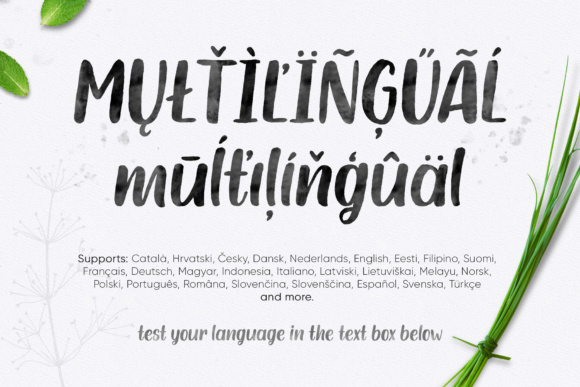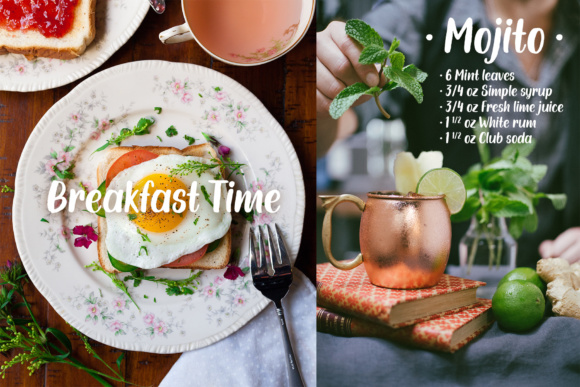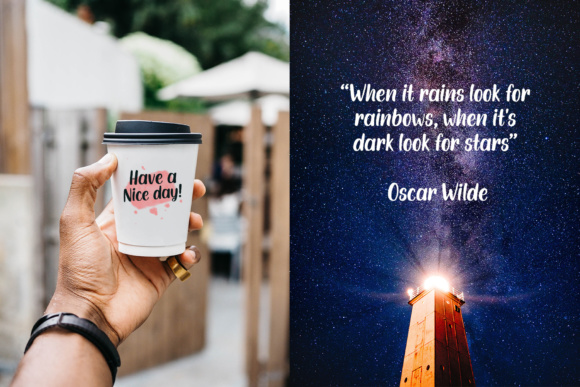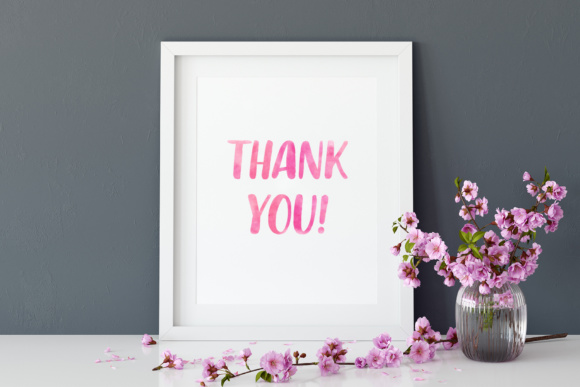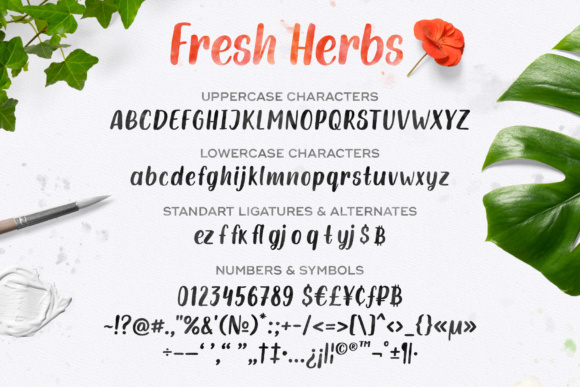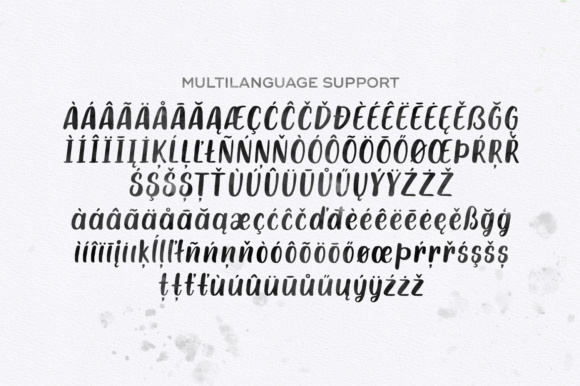
Introducing Fresh Herbs Font: The Perfect Hand-Drawn Brush Font for Your Design Needs
Are you a designer or crafter looking for a unique and eye-catching font to elevate your designs? Look no further than Fresh Herbs Font, a beautifully hand-drawn brush font that adds a touch of personality to any project. With its rough edges and natural look, Fresh Herbs Font is perfect for creating stunning text on photos, cards, product packaging, apparel, and more.
What Makes Fresh Herbs Font Special?
Fresh Herbs Font is a one-of-a-kind font that boasts a distinctive, hand-drawn look. Its rough edges, which are particularly visible in larger sizes, give it a charming, organic feel that’s perfect for designs that need a personal touch. Whether you’re creating a beautiful card design, a product label, or a social media post, Fresh Herbs Font is sure to make your text stand out.
One of the best things about Fresh Herbs Font is its versatility. It looks great when used for both small inscriptions and long texts, making it an excellent choice for a wide range of design projects. Whether you’re creating a simple yet elegant wedding invitation or a detailed product description, Fresh Herbs Font is up to the task.
Fresh Herbs Font is a dream come true for designers and crafters who want to add a personal touch to their work. With its unique, hand-drawn look, this font is perfect for anyone who wants to create beautiful, eye-catching designs that stand out from the crowd. Whether you’re a professional designer or a hobbyist crafter, Fresh Herbs Font is an excellent addition to your font collection.
Use Fresh Herbs Font for:
- Text on photos: Add a personal touch to your photos with Fresh Herbs Font, perfect for creating beautiful social media posts, blog headers, and more.
- Cards designs: Create stunning greeting cards, wedding invitations, and more with Fresh Herbs Font.
- Product packaging: Elevate your product packaging with Fresh Herbs Font, perfect for labels, tags, and more.
- Apparel: Design beautiful t-shirts, hoodies, and more with Fresh Herbs Font.
- Any other design that needs a striking brush font: From posters to flyers, Fresh Herbs Font is perfect for any design project that needs a unique, eye-catching font.
Why Choose Fresh Herbs Font?
So why choose Fresh Herbs Font over other fonts? Here are just a few reasons:
- Unique, hand-drawn look: Fresh Herbs Font boasts a distinctive, hand-drawn look that’s sure to make your designs stand out.
- Versatility: Fresh Herbs Font looks great for both small inscriptions and long texts, making it perfect for a wide range of design projects.
Fresh Herbs Font is a beautifully hand-drawn brush font that’s perfect for designers and crafters who want to add a personal touch to their work. With its unique, natural look and versatility, Fresh Herbs Font is an excellent choice for a wide range of design projects. Whether you’re creating text on photos, cards designs, product packaging, apparel, or more, Fresh Herbs Font is sure to make your designs stand out. So why wait? Download Fresh Herbs Font today and start creating stunning designs that showcase your personality and style!